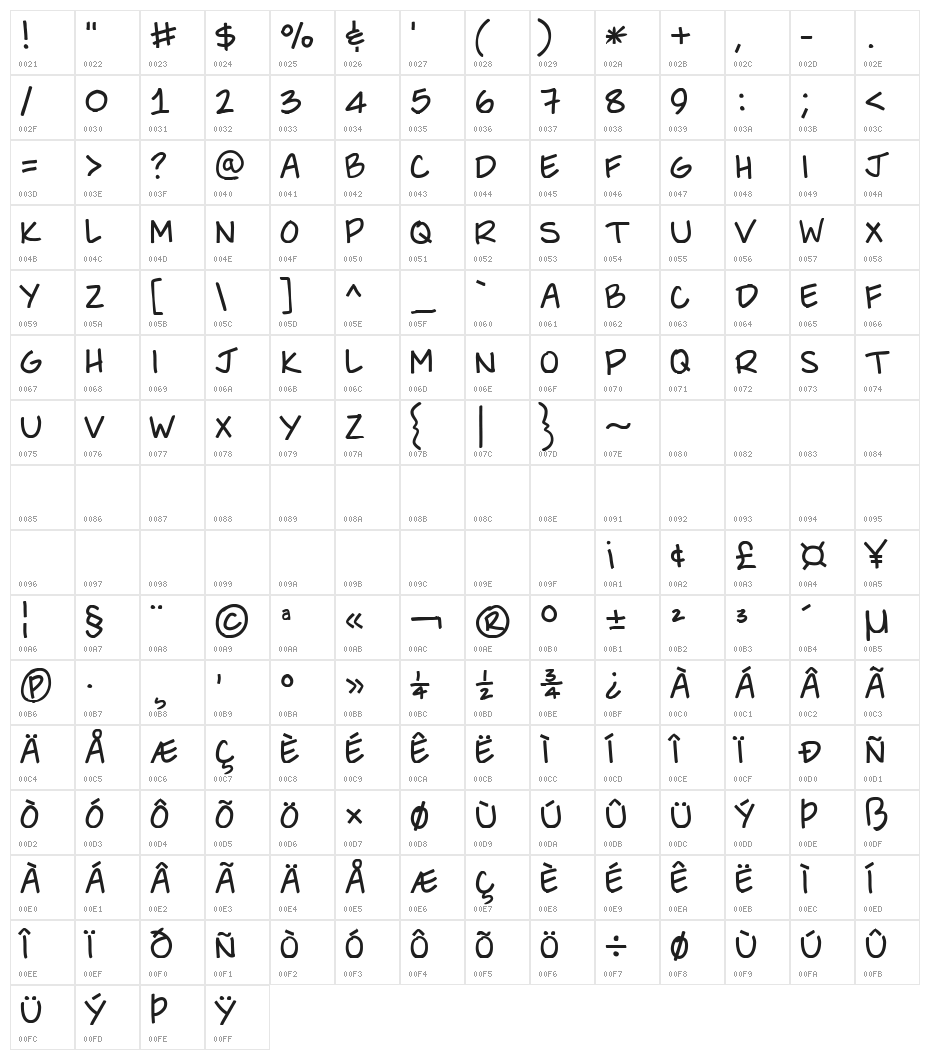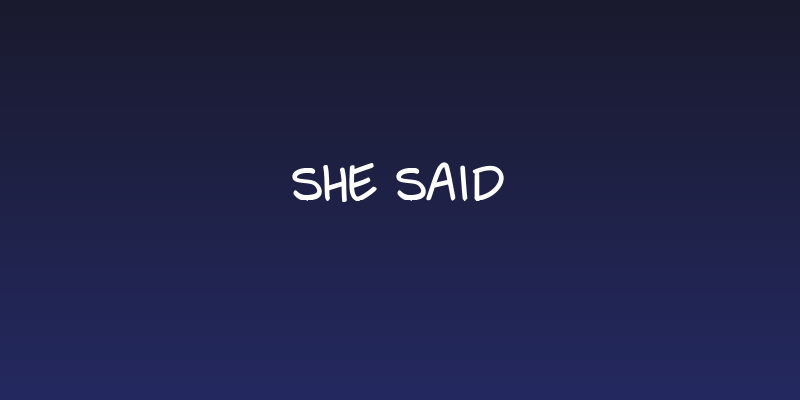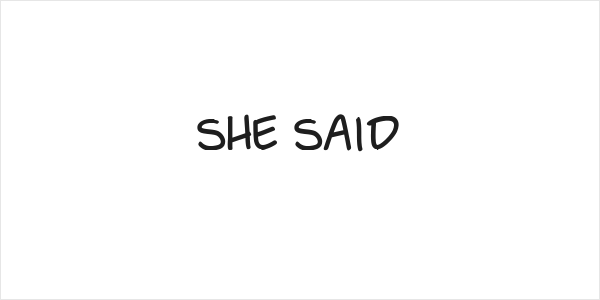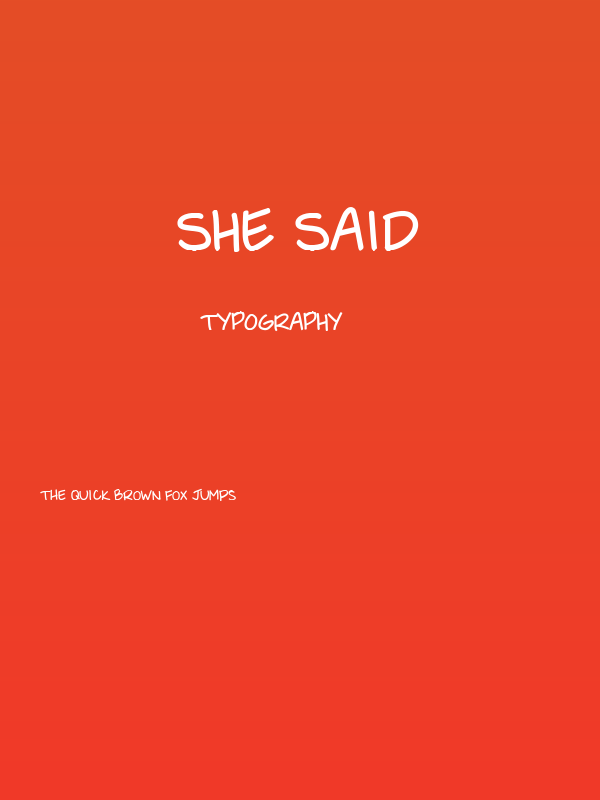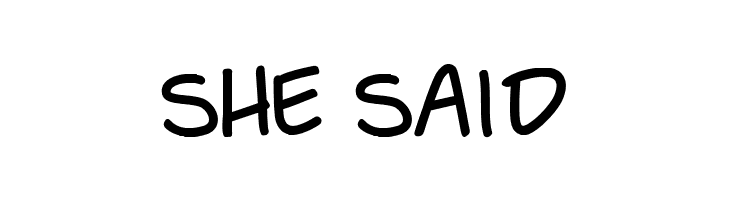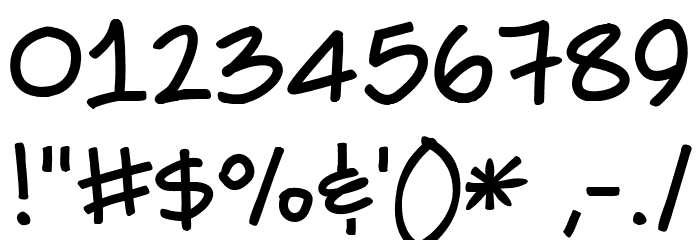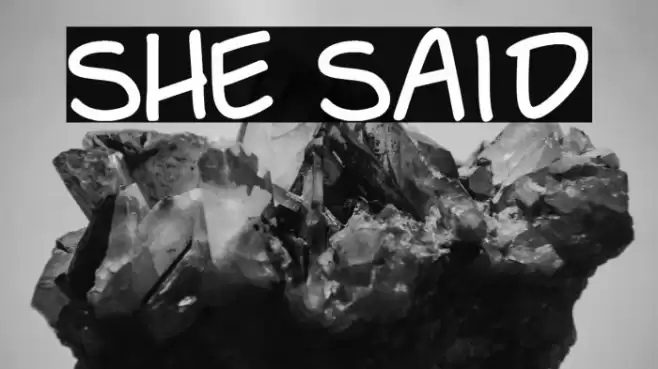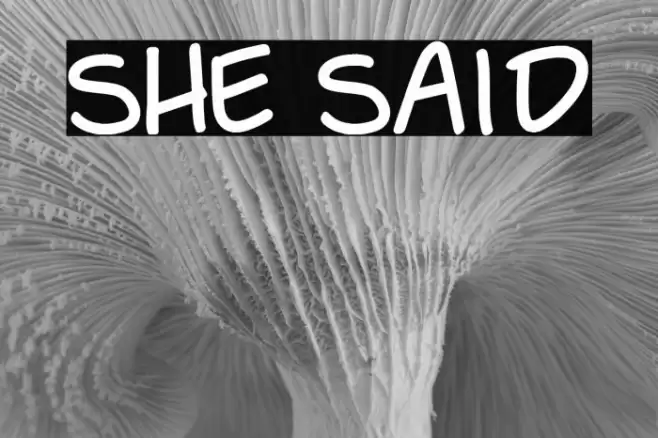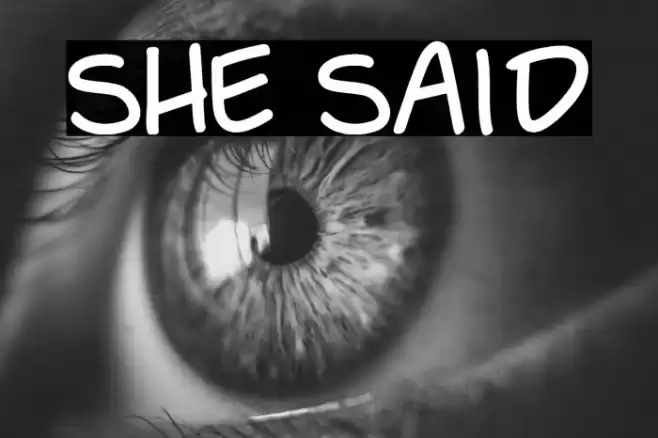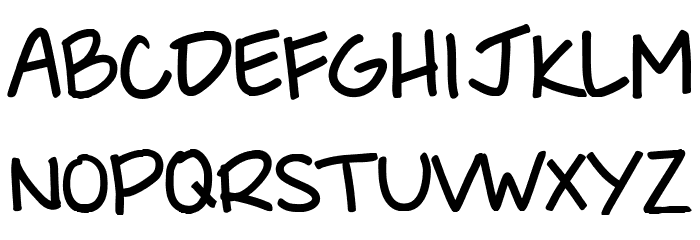
She Said Font
She Said Description
This font features a playful and casual handwritten style, characterized by its smooth, rounded edges and slightly irregular letterforms. The uppercase and lowercase letters maintain a consistent flow, giving it a natural, organic feel. The numbers and special characters are designed to match the overall aesthetic, ensuring a cohesive look across all text. The font's informal appearance makes it ideal for projects that require a personal touch or a friendly, approachable vibe.
| Overall Style | Casual |
| Use Case | Headlines, Informal text, Personal projects |
| Proposed Projects | Ideal for greeting cards, children's books, personal blogs, and informal branding projects. |